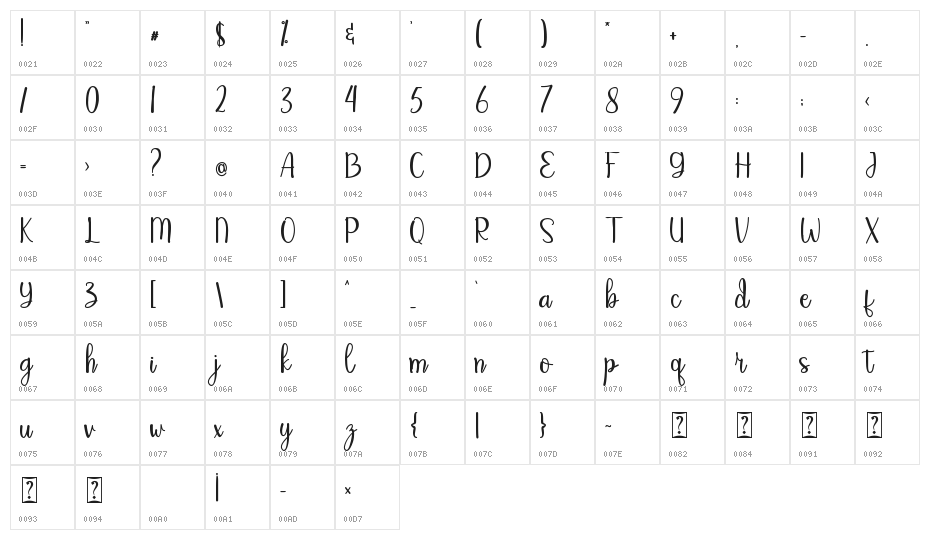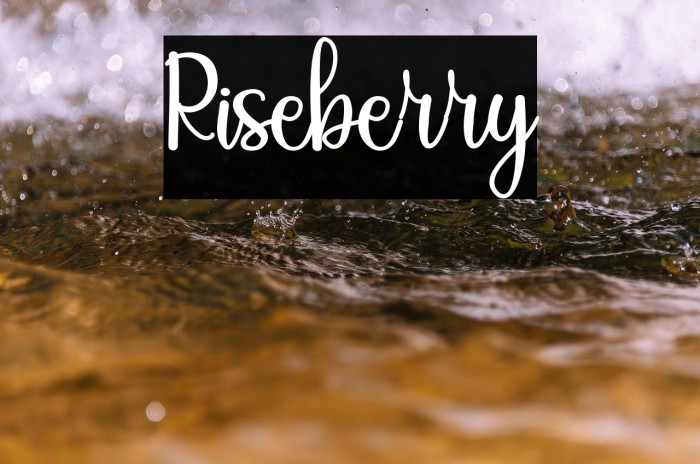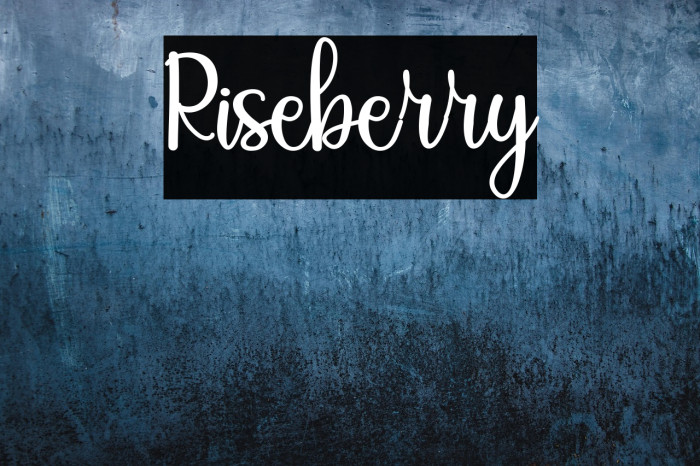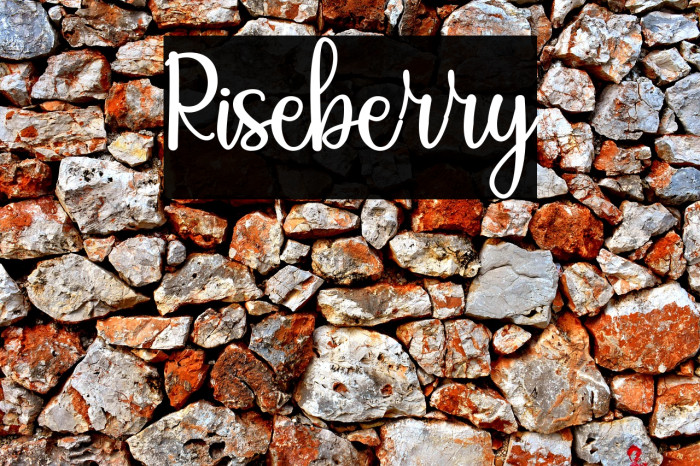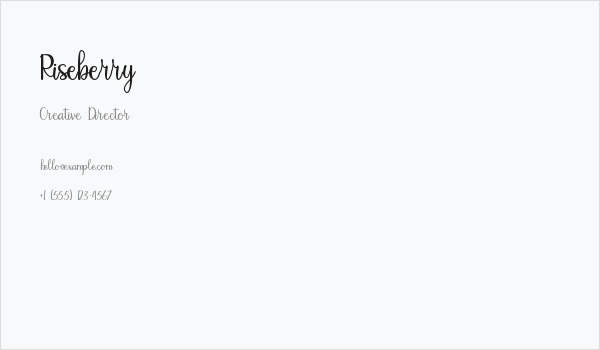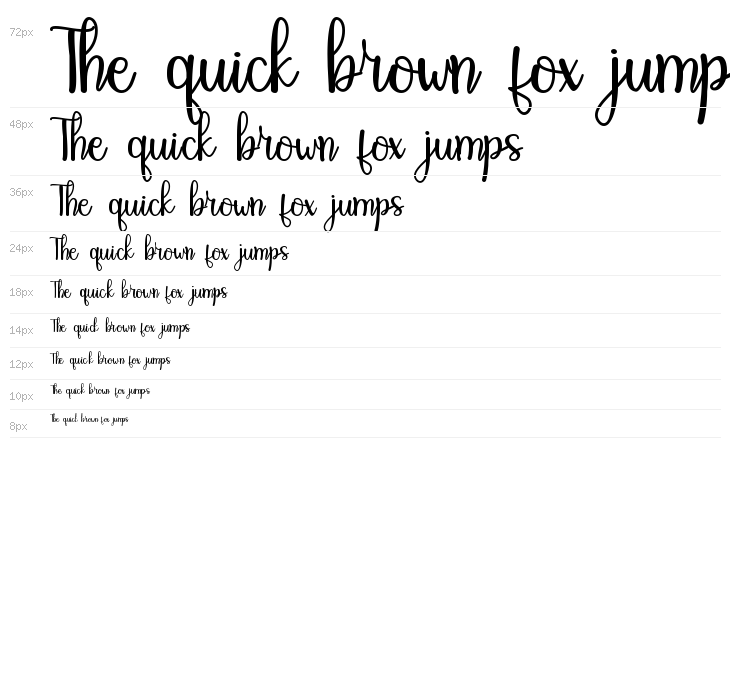
Riseberry Font
Riseberry Description
This font exudes a playful and casual vibe with its handwritten style. The letters are characterized by smooth, flowing curves and a slight slant, giving it an informal yet stylish appearance. The uppercase letters are bold and slightly taller than the lowercase, which are more rounded and compact. The numbers maintain the same playful aesthetic, with consistent stroke thickness throughout. Special characters are creatively integrated, maintaining the overall whimsical feel. This font is perfect for projects that require a personal touch, such as invitations, greeting cards, or branding for creative businesses.
| Use Case | Invitations, Greeting cards, Creative branding |
| Proposed Projects | Ideal for invitations, greeting cards, creative branding, and personal projects. |